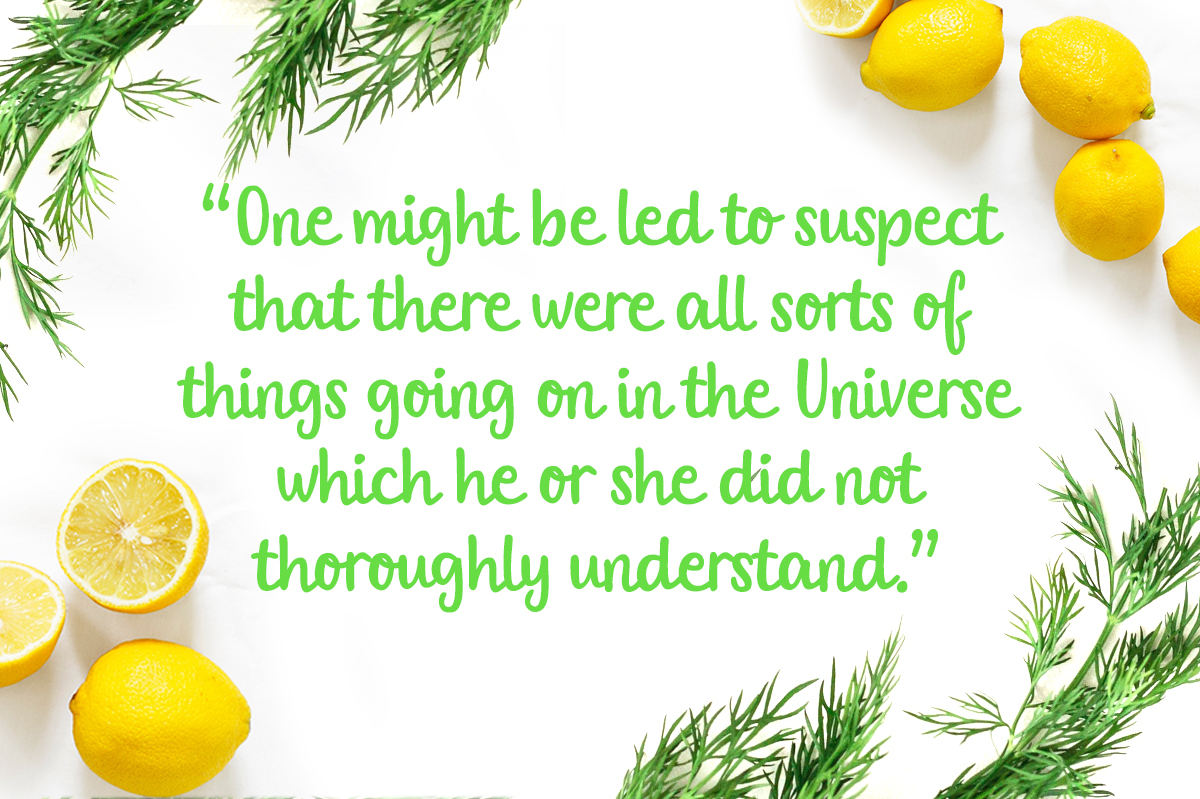
Introduction to Fresh Mix Font
As a designer, there’s nothing quite like the thrill of discovering a new, game-changing font that elevates your creative project to the next level. For me, that moment came when I stumbled upon the Fresh Mix Font – a stunning script font that’s perfect for Springtime designs. With its unique blend of elegance and playfulness, this font is a design resource that’s sure to make your work stand out.
What sets Fresh Mix Font apart from other high-quality fonts is its versatility. Whether you’re working on a digital campaign or a print brochure, this font delivers legibility and style in equal measure. Plus, with a transparent background, you can easily layer it over images or textures to create a truly unique look.
Key Features of Fresh Mix Font
- Unique blend of modern and vintage elements, making it a standout design resource for creative projects.
Honest Review: Fresh Mix Font
I recently had the chance to work with the Fresh Mix Font, and I must say it’s been a game-changer for my creative projects. As a designer, I’m always on the lookout for high-quality design resources that can elevate my work, and this font definitely delivers.
- ✨ Versatility: The Fresh Mix Font is incredibly versatile and can be used for a wide range of creative projects, from logos and branding to web design and print materials.
- ✨ High-quality glyphs: The font features high-quality glyphs that are clear and easy to read, even at smaller font sizes.
- ✨ Transparent background: The font’s transparent background makes it easy to overlay on top of images and other design elements.
- ⚠️ Limited customization options: While the font is highly versatile, it’s not easily customizable, which may be a drawback for some designers.
- ⚠️ Not suitable for all design styles: The Fresh Mix Font is best suited for modern and minimalist design styles, and may not be the best choice for more traditional or ornate designs.
Overall, I’m thoroughly impressed with the Fresh Mix Font. Its high quality and versatility make it a valuable addition to any designer’s toolkit. While it may have a few limitations, I believe it’s a solid choice for designers looking for a reliable and free design resource.
How to Use Fresh Mix Font
Getting the Most Out of Fresh Mix Font
For the best results, use the Fresh Mix Font in conjunction with other design elements to create a visually appealing and cohesive look. Experiment with different font sizes, colors, and arrangements to find the perfect balance for your project.
The Fresh Mix Font is ideal for various creative projects, including:
- Logo designs
- Marketing materials and social media graphics
Alternatives to Fresh Mix Font
1. Groovy Sans
Groovy Sans is a free, high-quality sans-serif font ideal for creative projects that require a modern and playful touch. It features a transparent background, making it perfect for use on various design resources. When to use: Digital menus, advertisements, and social media graphics. How it compares: Groovy Sans is more modern and sleek compared to Fresh Mix Font’s eclectic feel.
2. Cosmic Groove
Cosmic Groove is a high-quality, free font that adds a touch of whimsy to any design. It’s perfect for designers looking for a unique, creative font for their projects. When to use: Branding materials, packaging designs, and web graphics. How it compares: Cosmic Groove has a more futuristic feel compared to Fresh Mix Font’s vintage vibe.